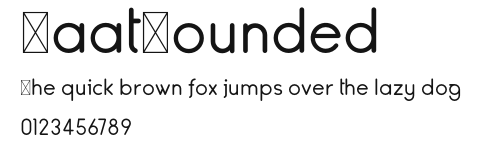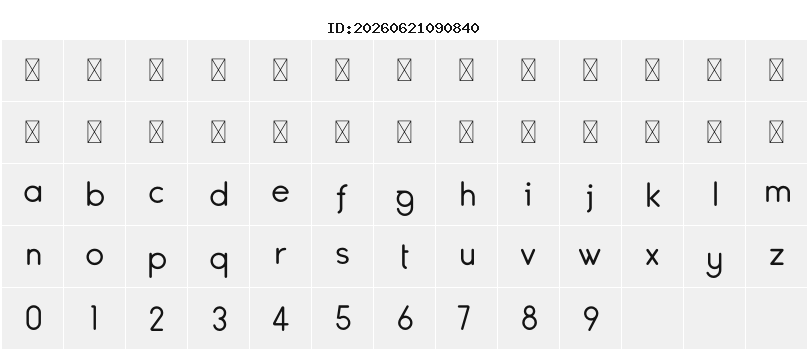
• Font Name: MaatRounded
• Full Font Name: MaatRounded
About MaatRounded.otf
MaatRounded.otf is a modern, elegant sans-serif font designed for ultimate readability and visual harmony. Perfect for branding, headlines, web design, and print materials.